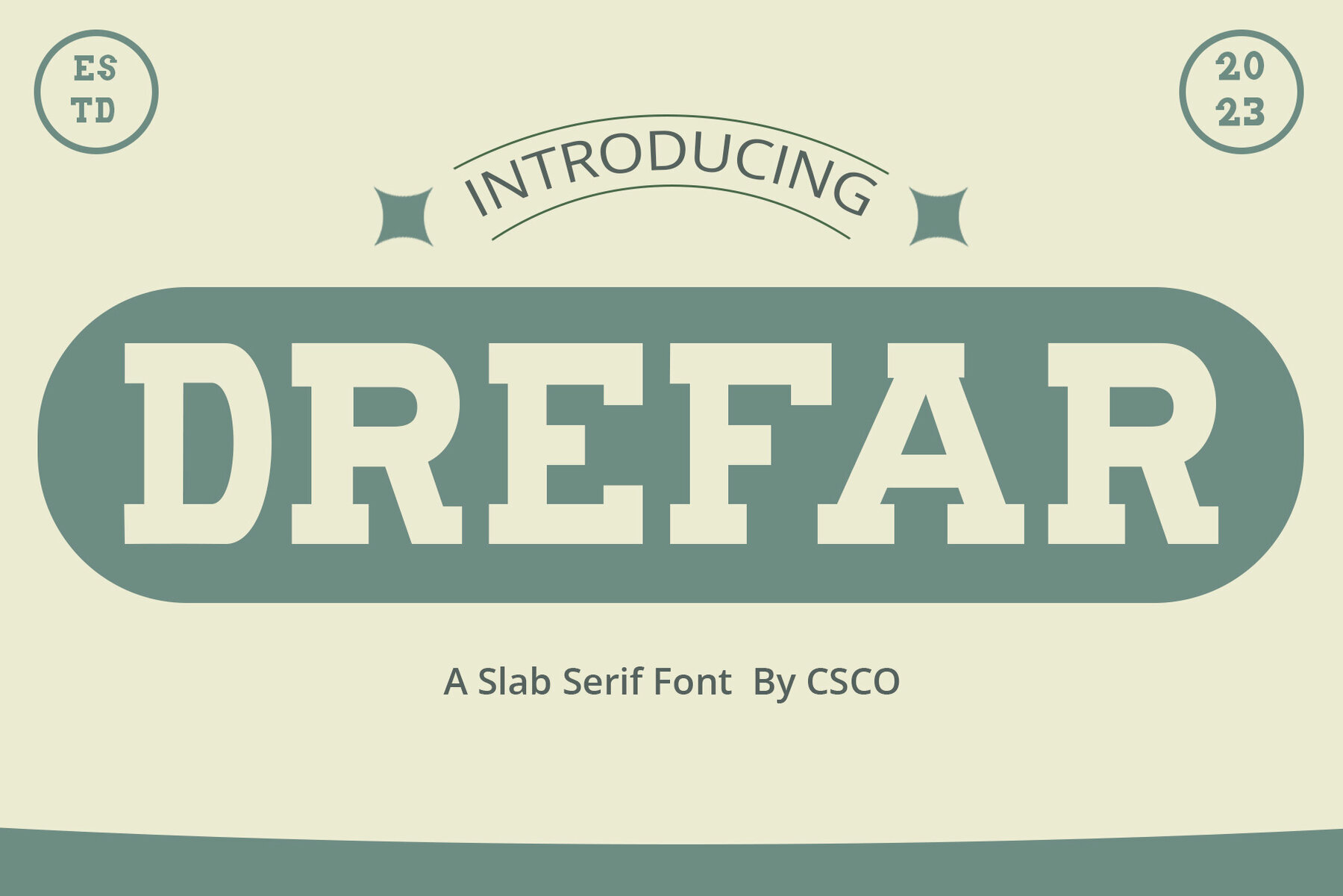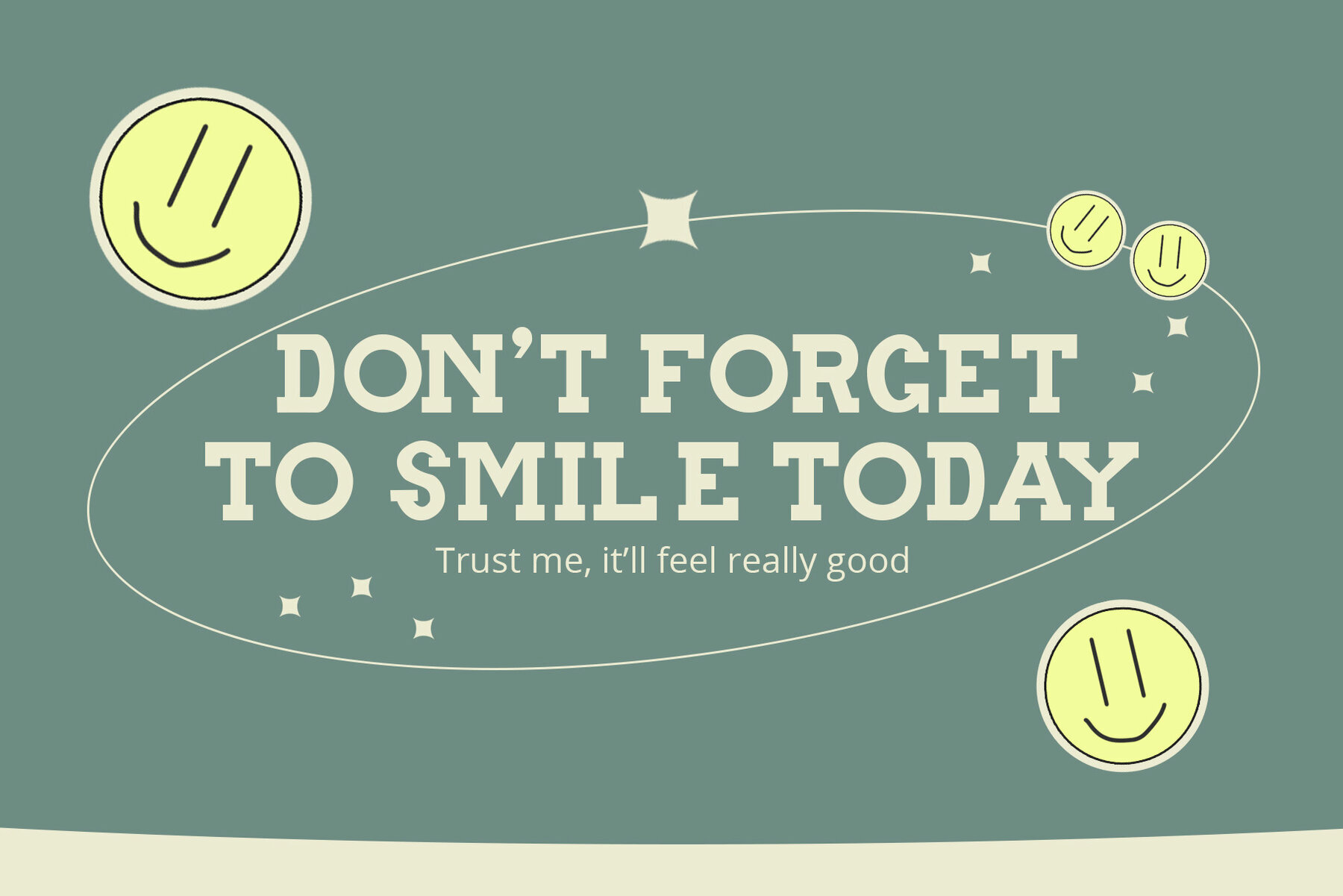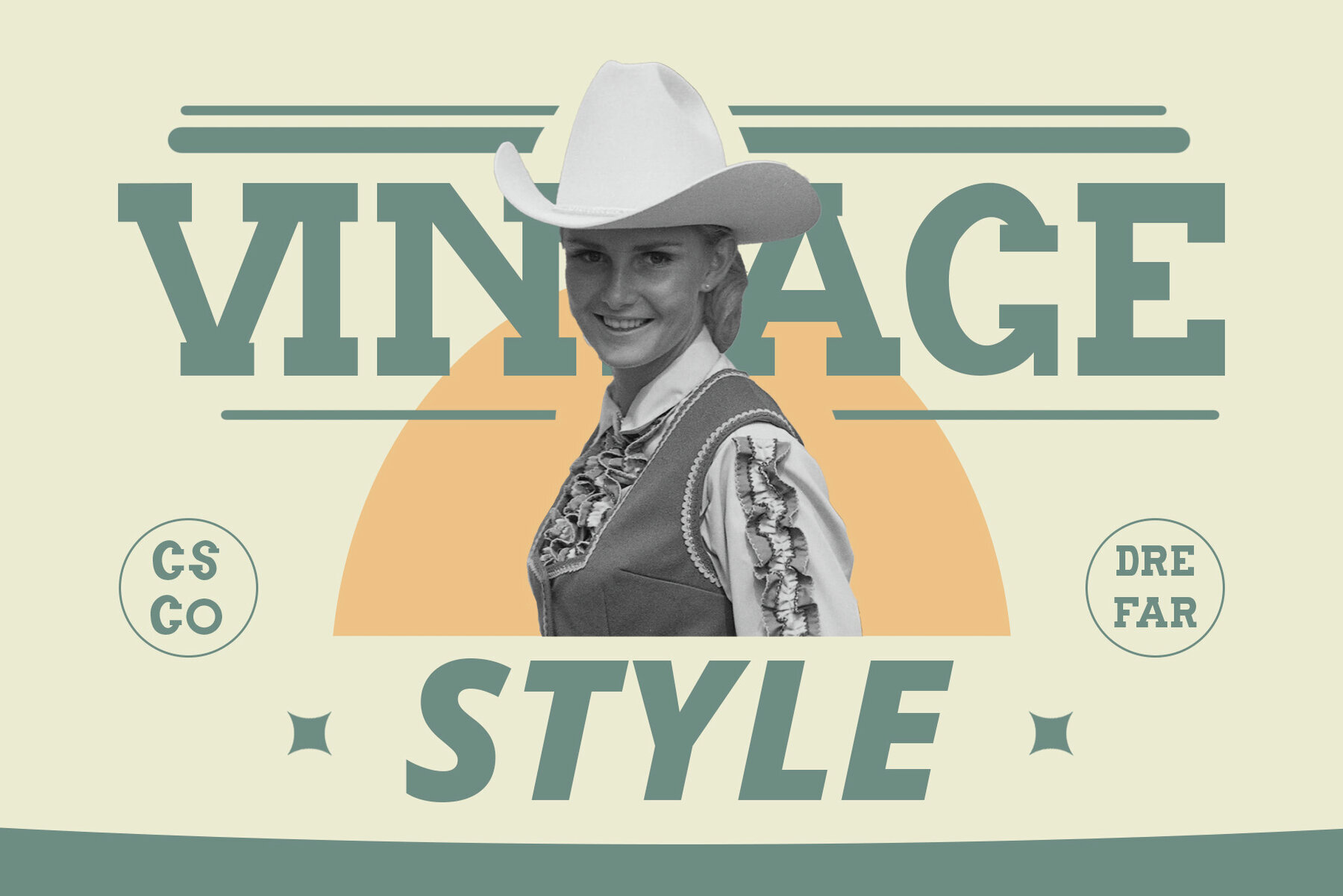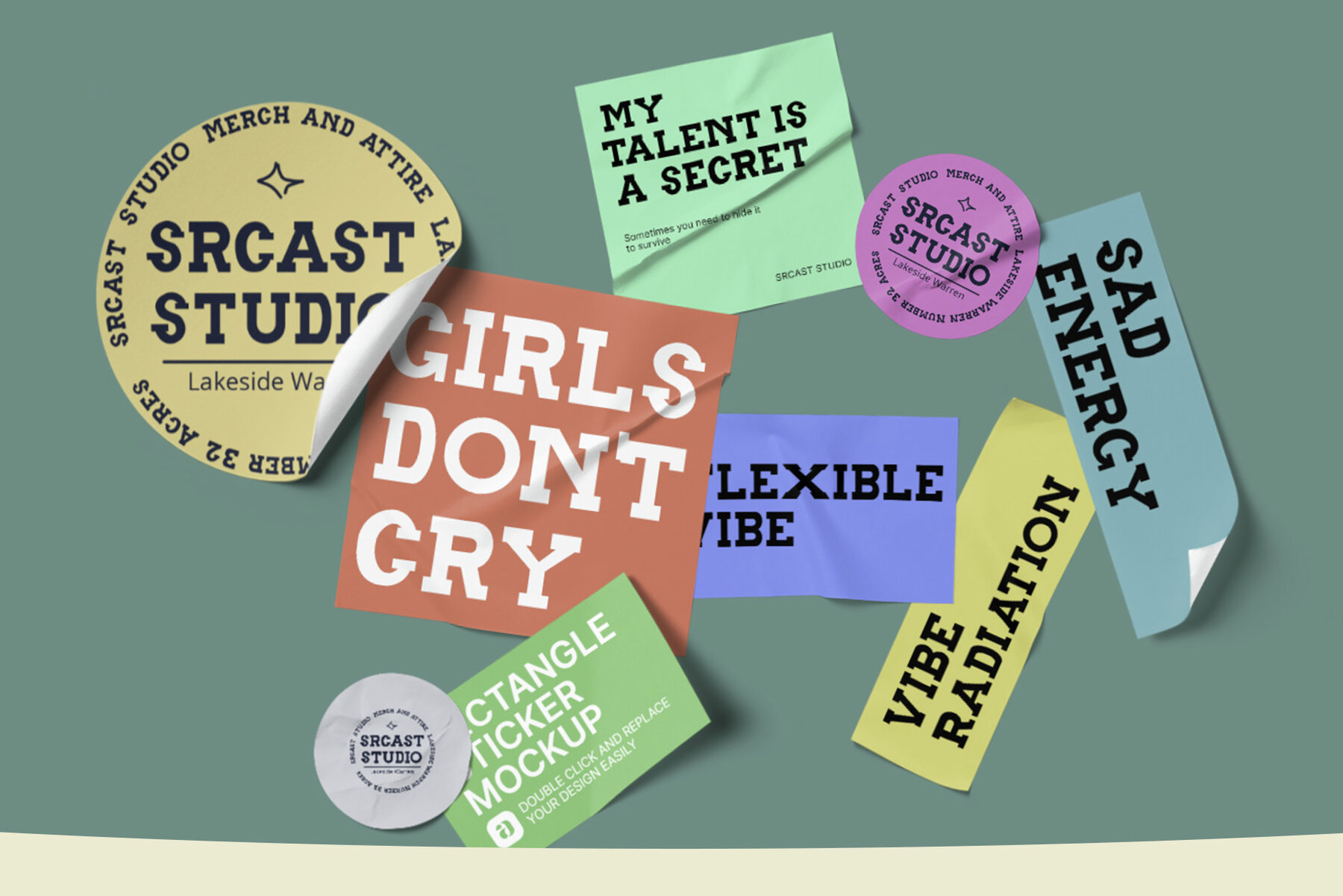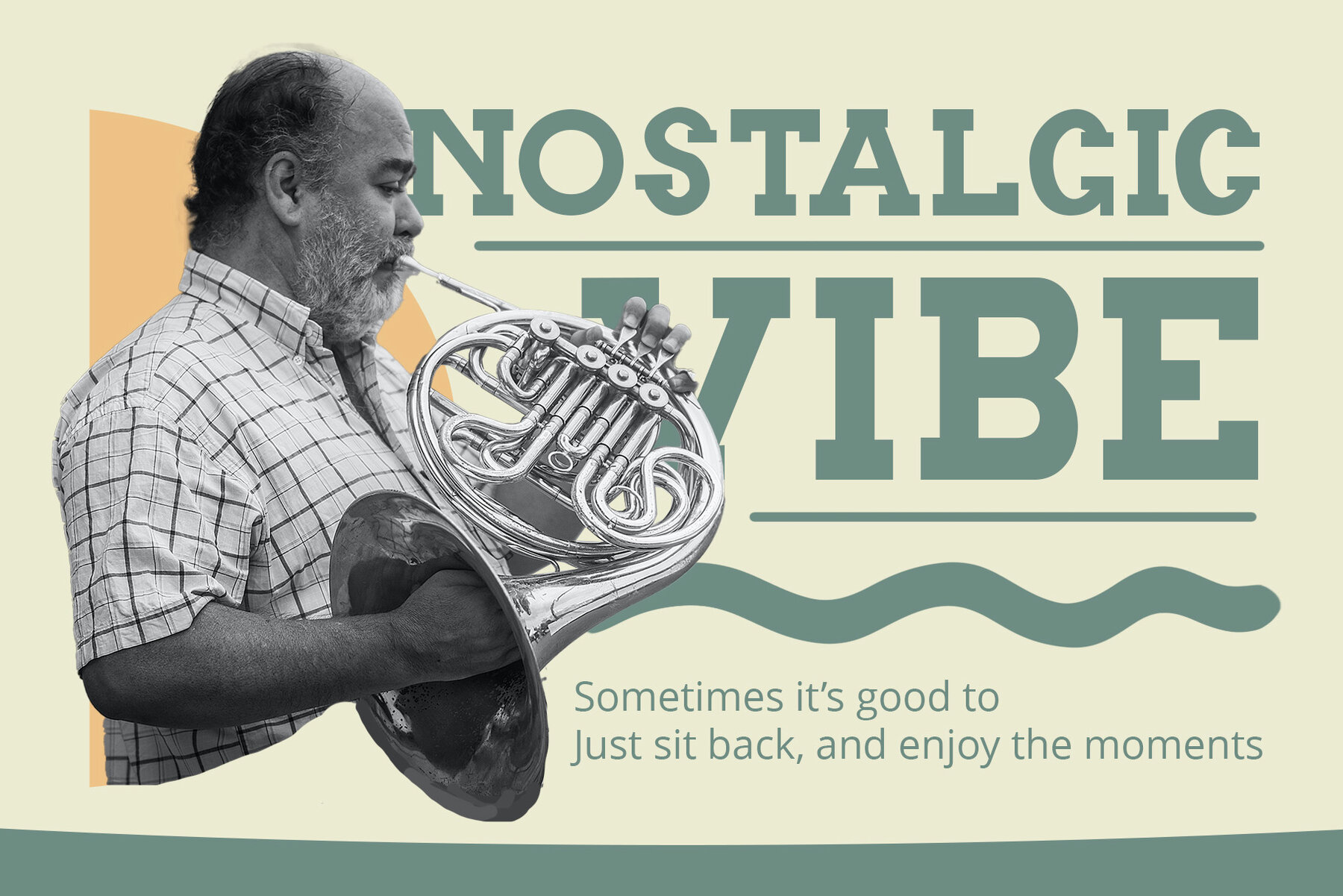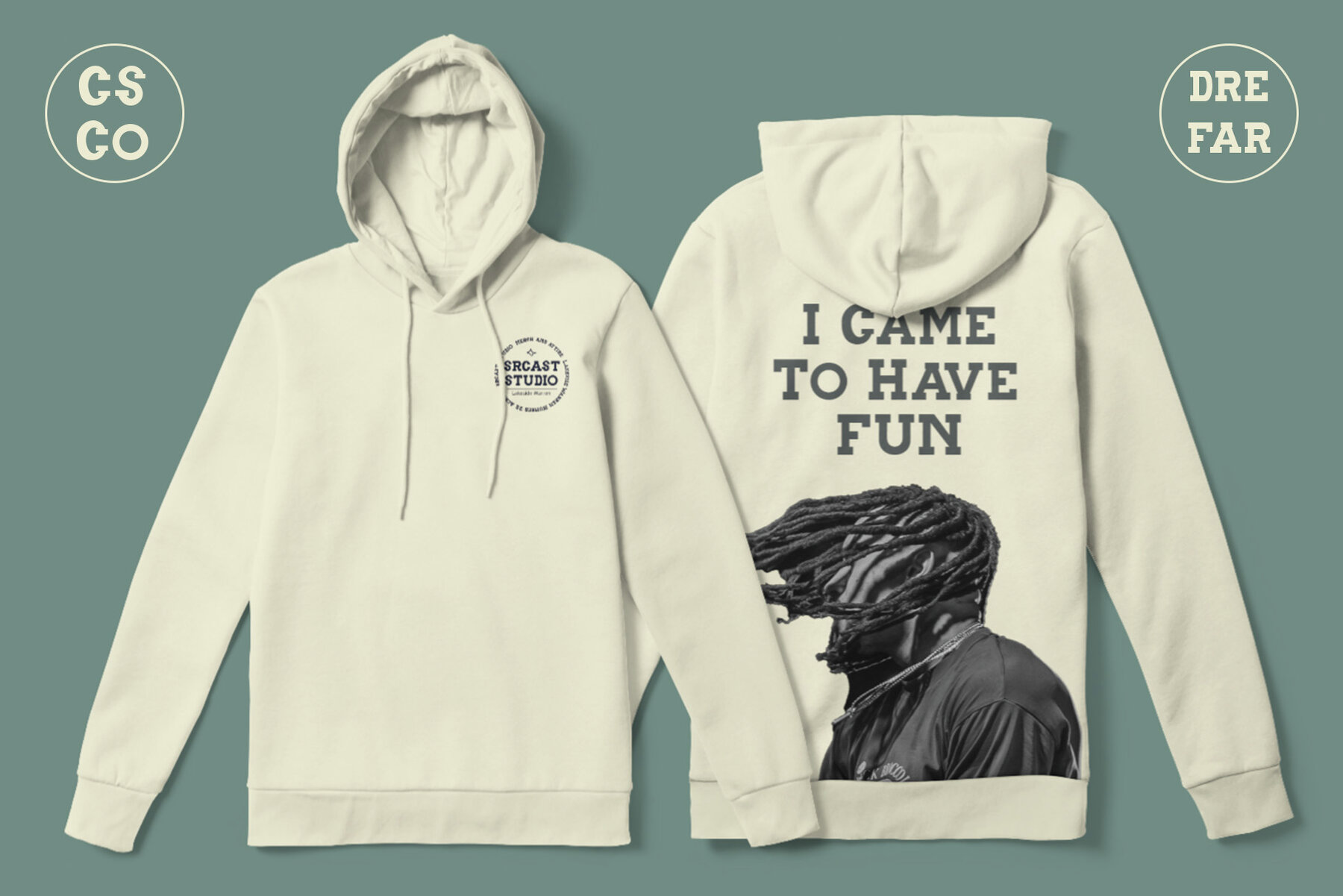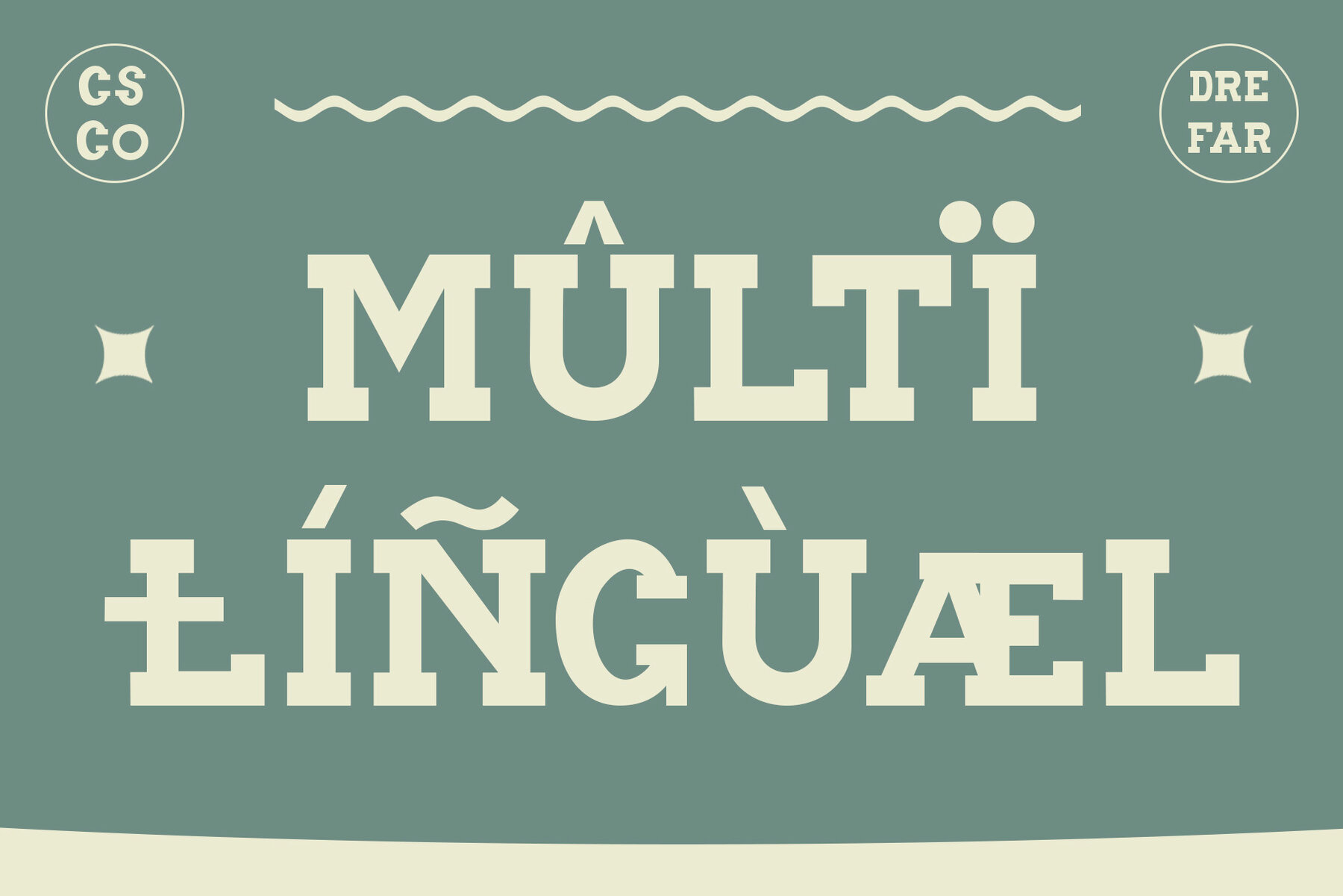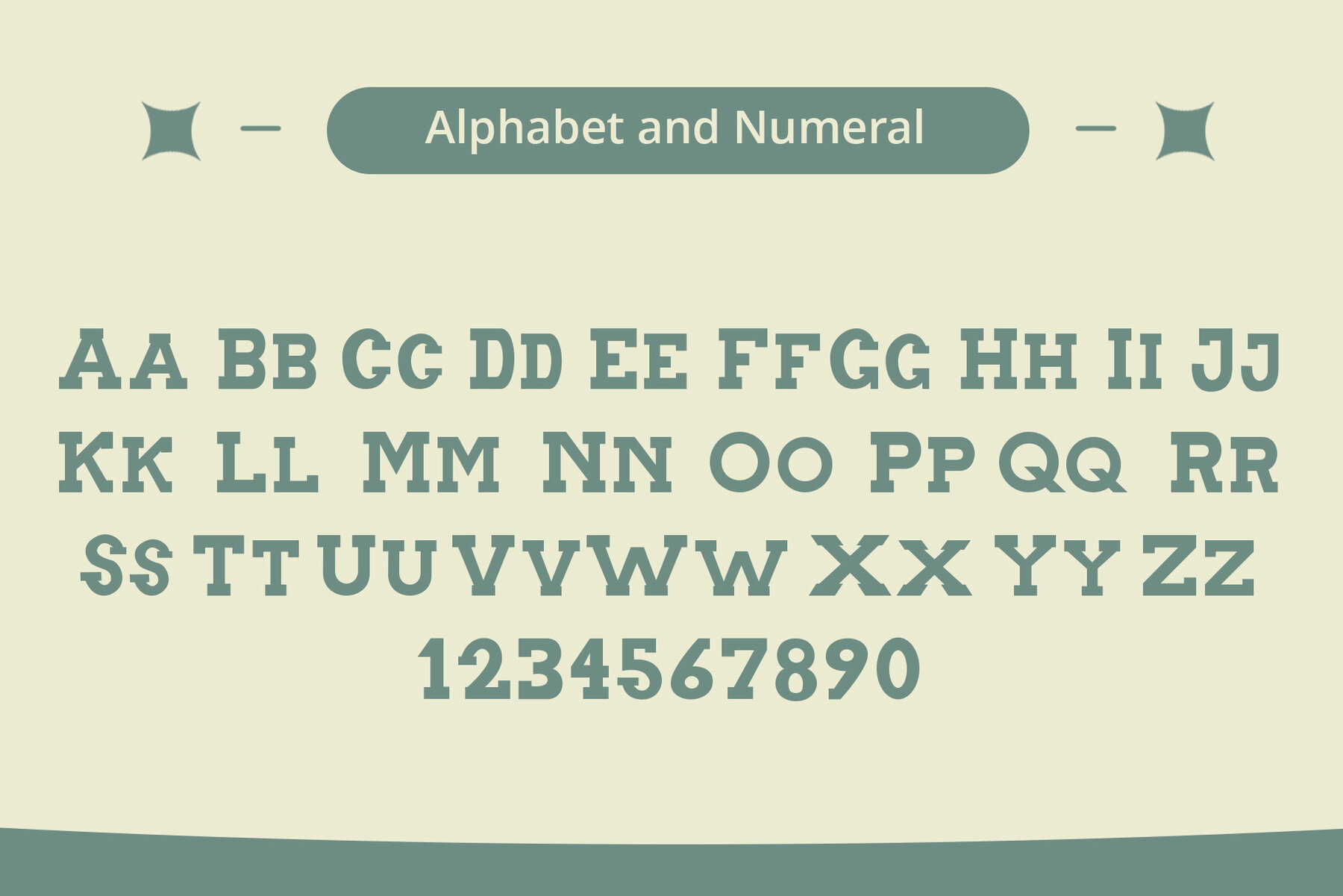
Drefar Font
Drefar Regular
Drefar is a slab serif font that presents a unique blend of masculinity and casual flair, making it an excellent option for display purposes. The bold and rugged characteristics of Drefar project strength and resilience, perfectly suited for projects that demand a strong and robust presence. With its informal nature, Drefar adapts to various applications, including posters, headlines, and more, without losing its bold essence.Drefar: A Masculine Slab Serif Font
Bold and Rugged Design
Informal Versatility